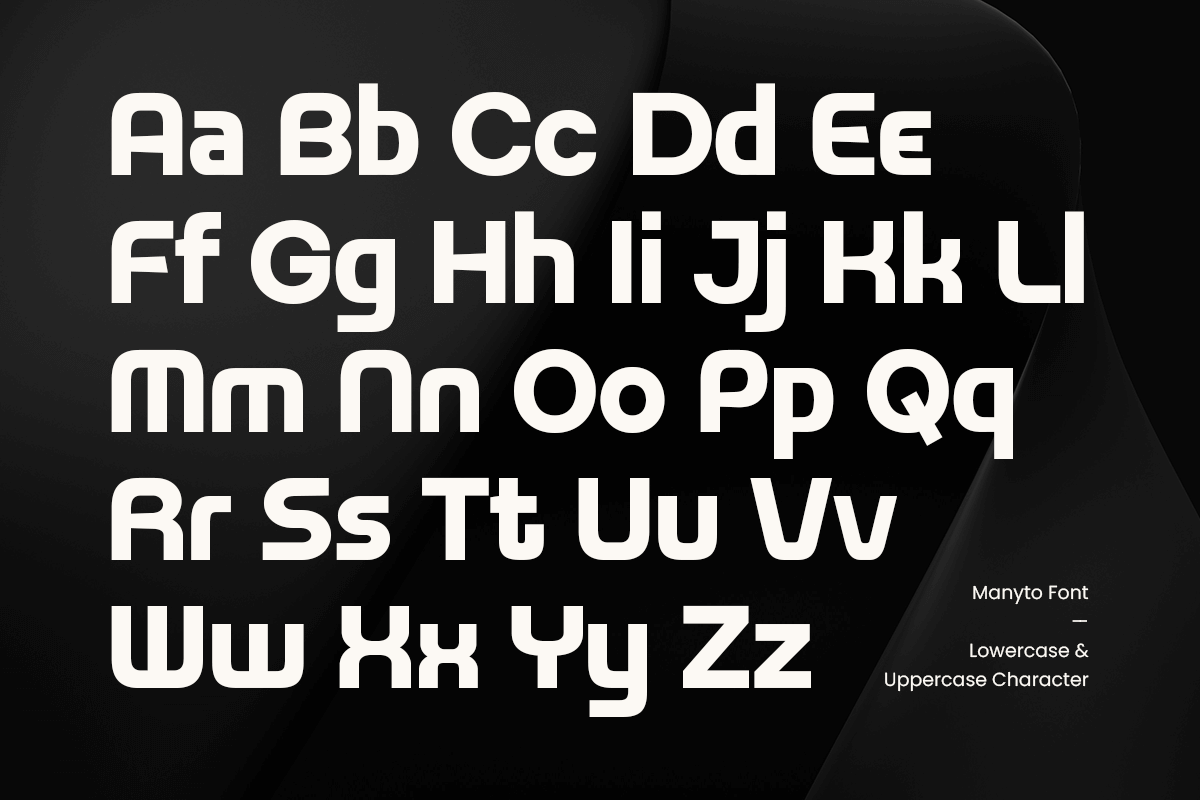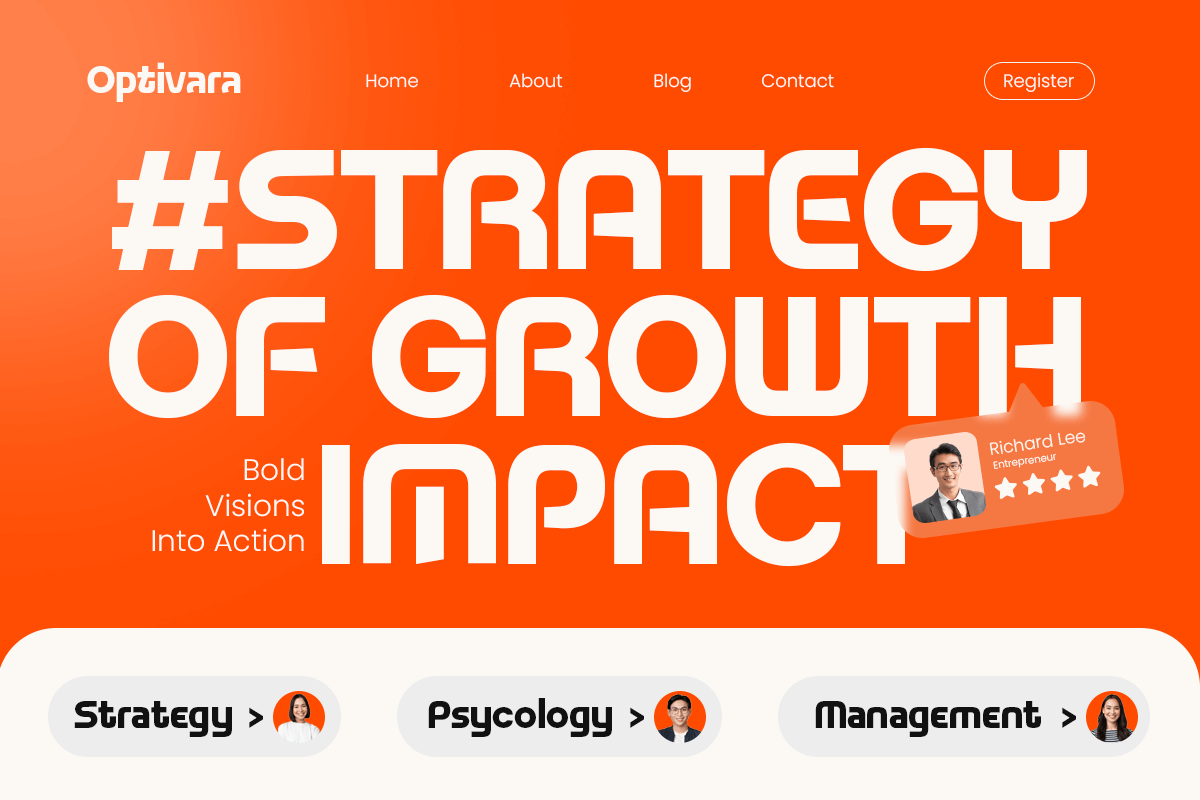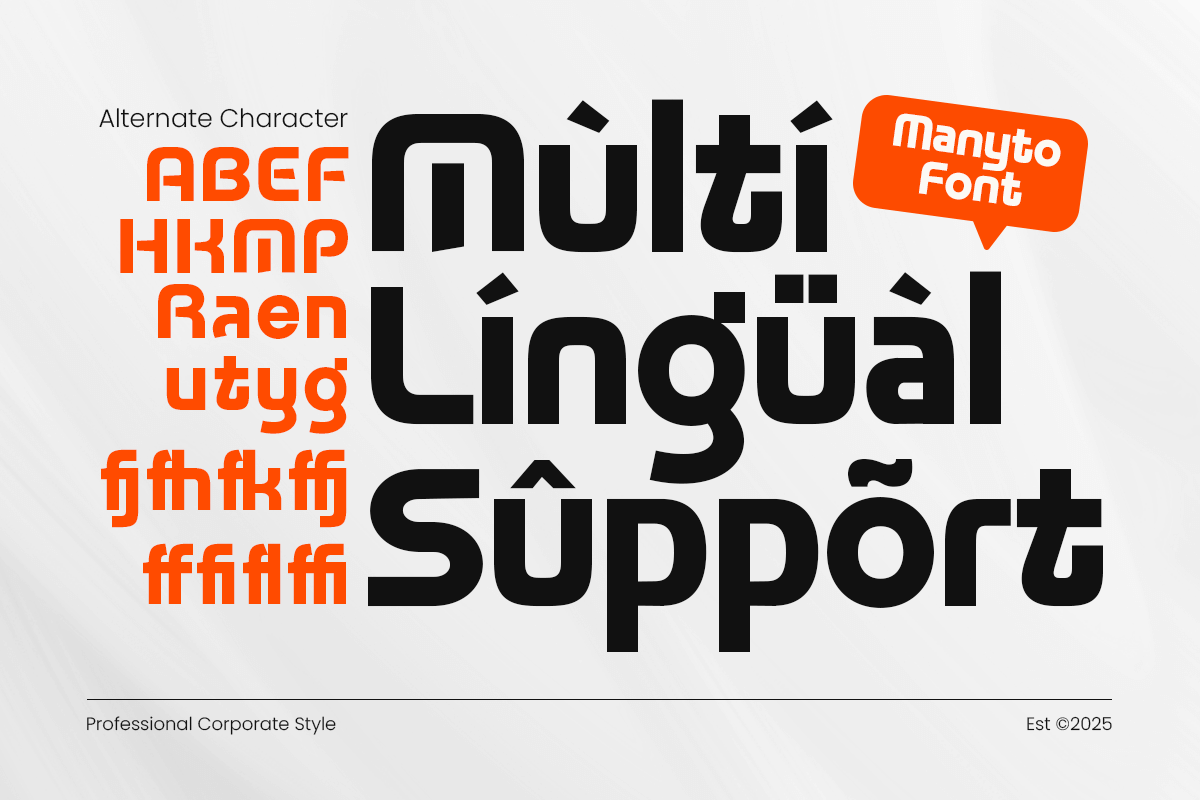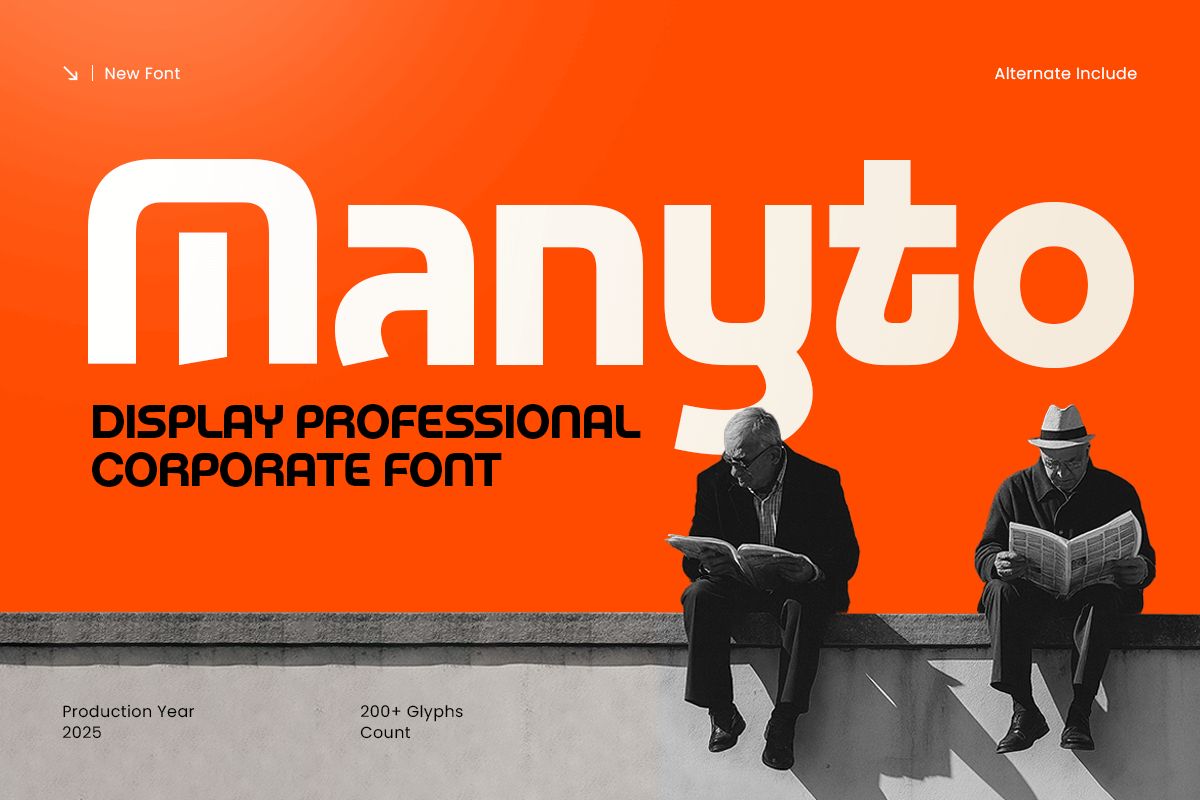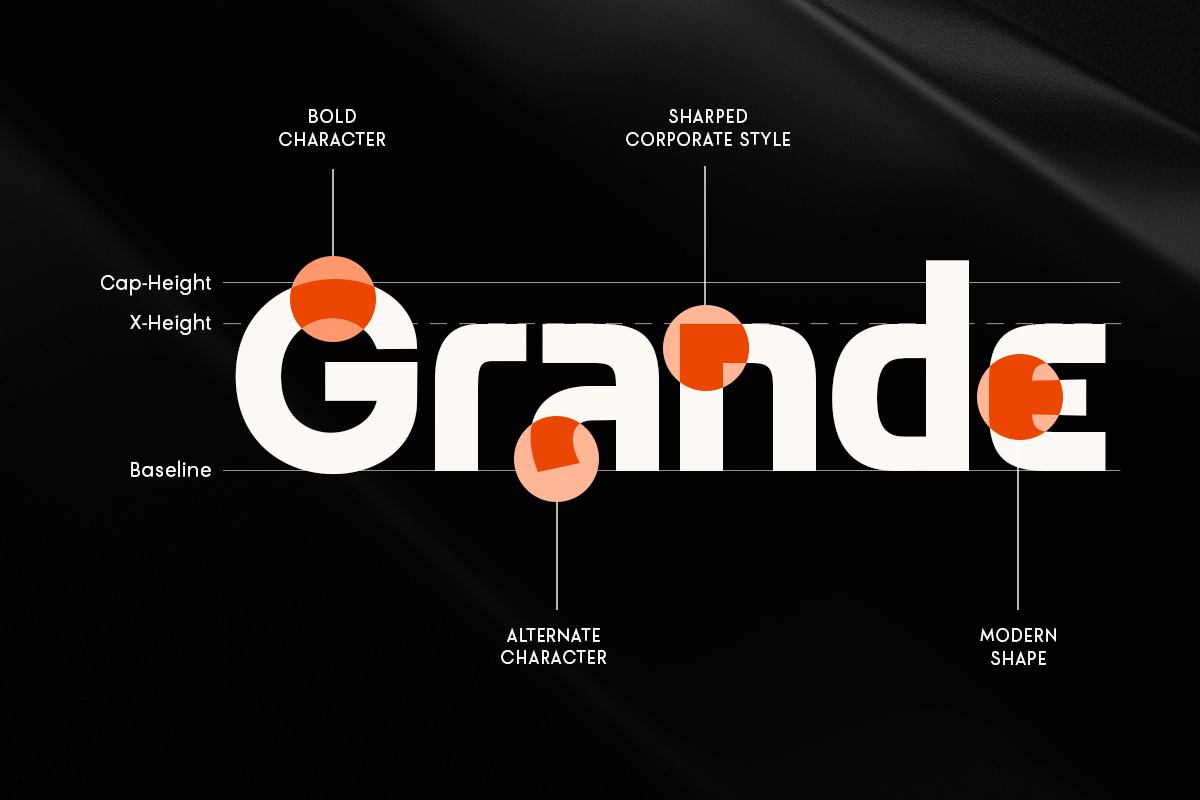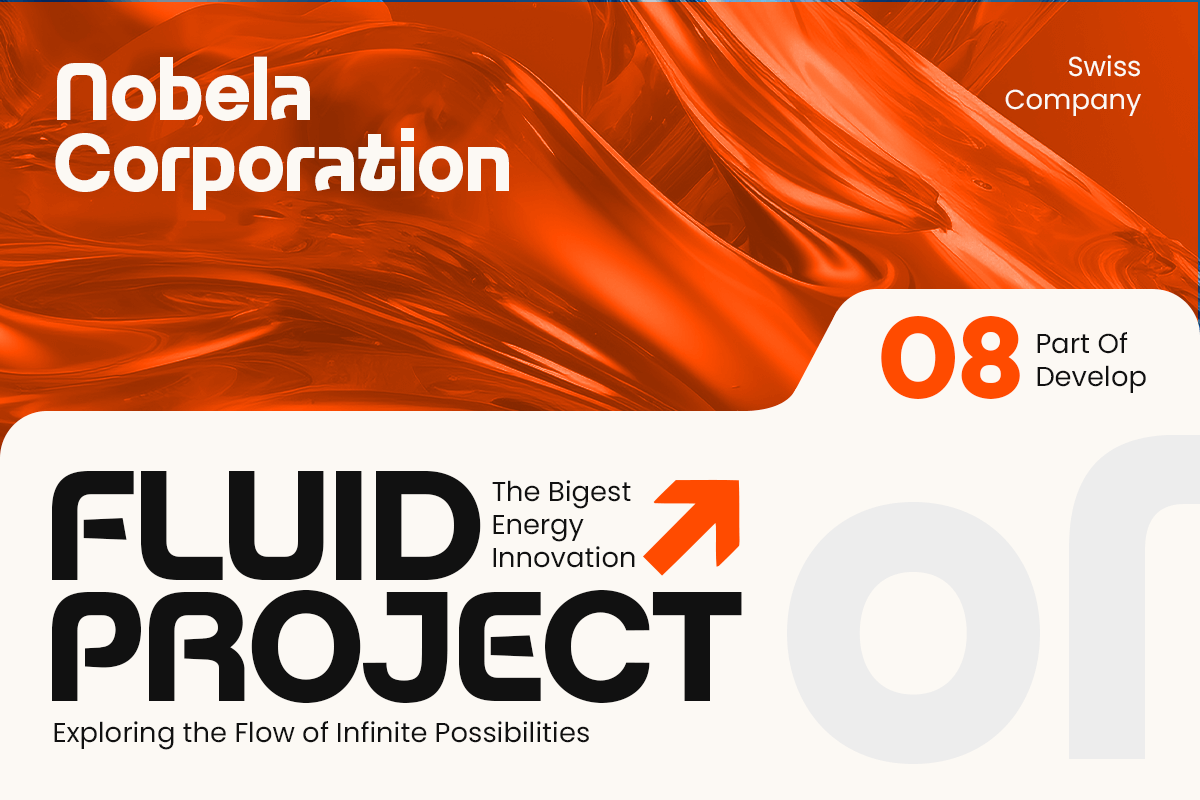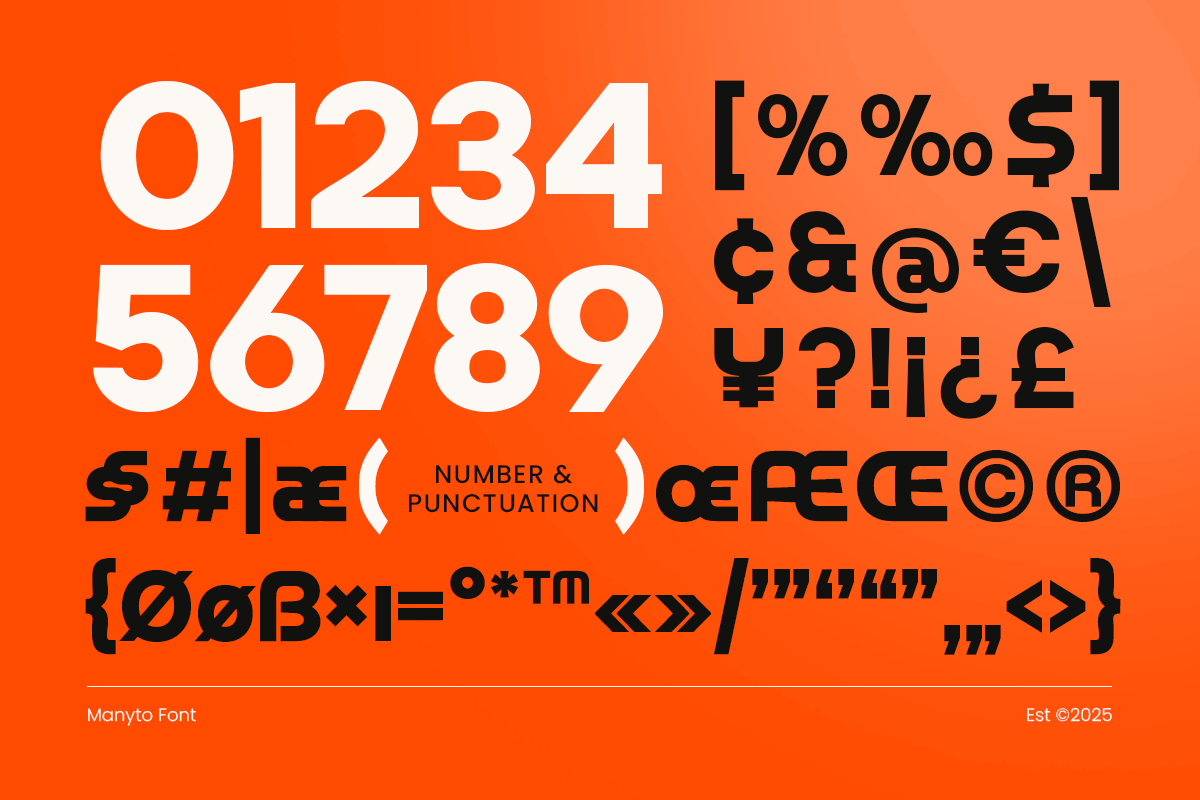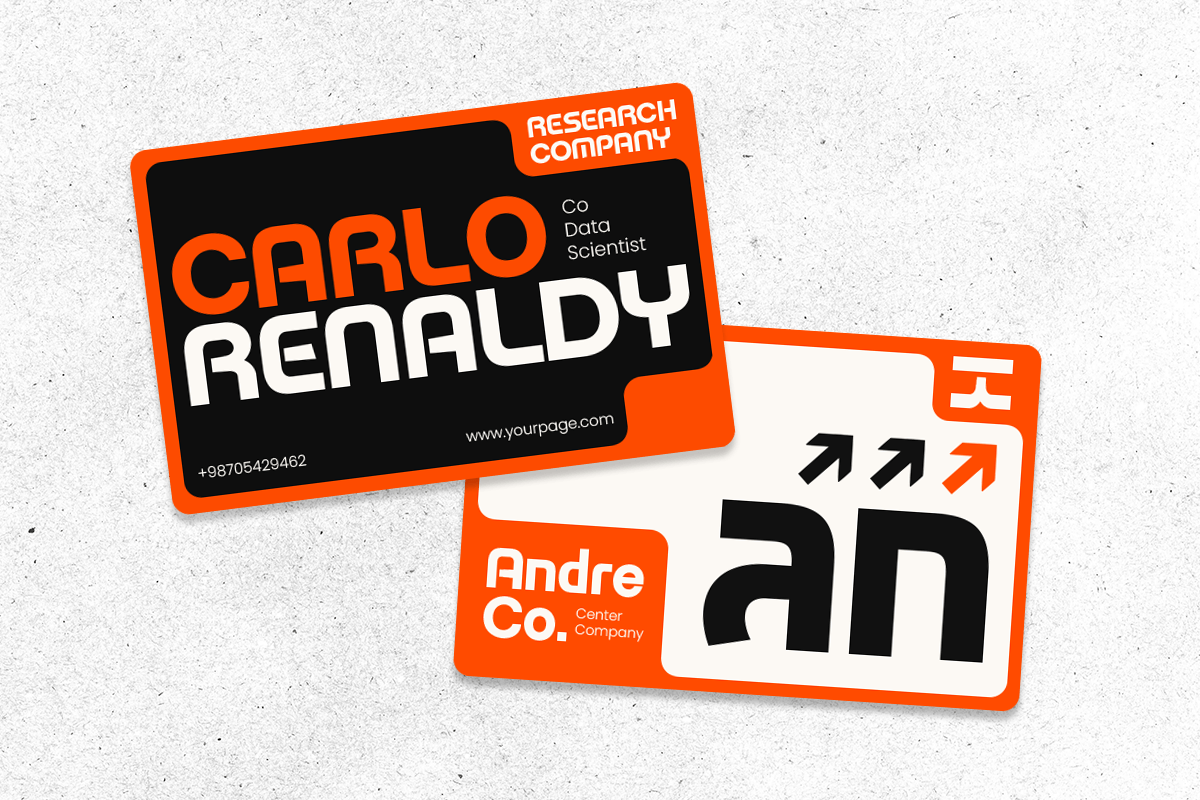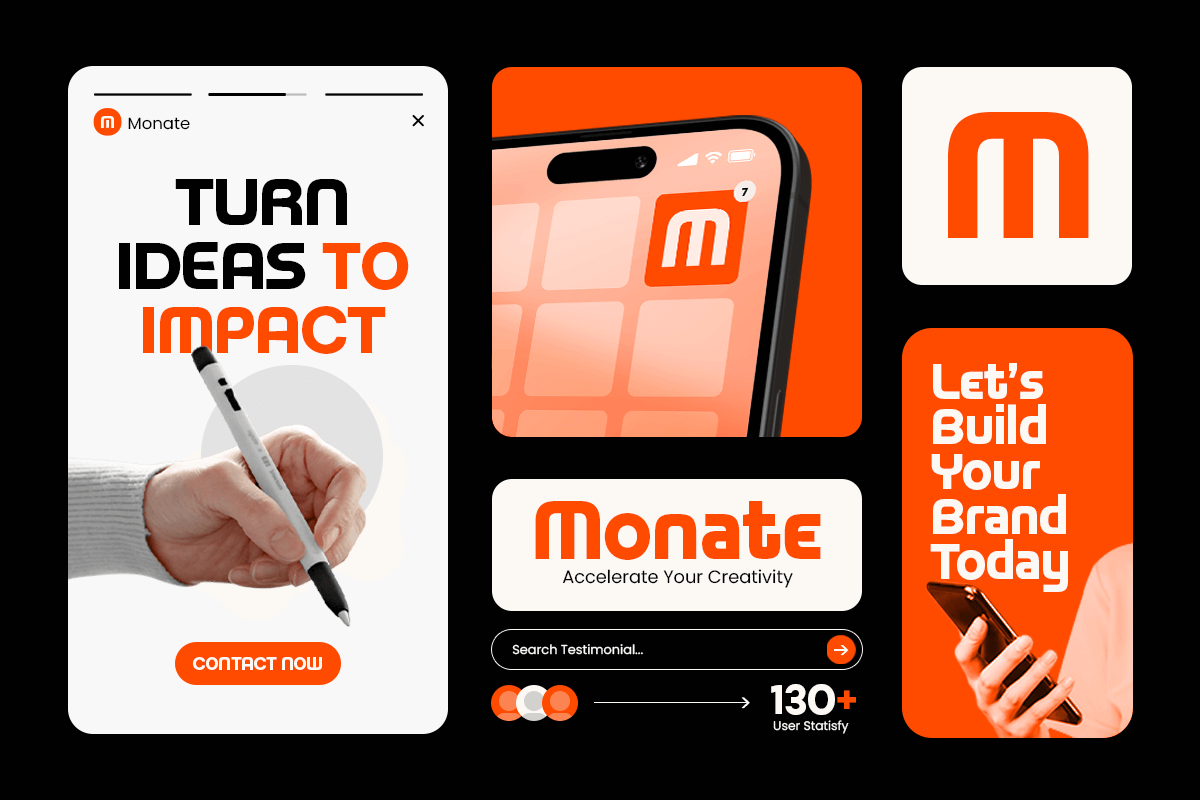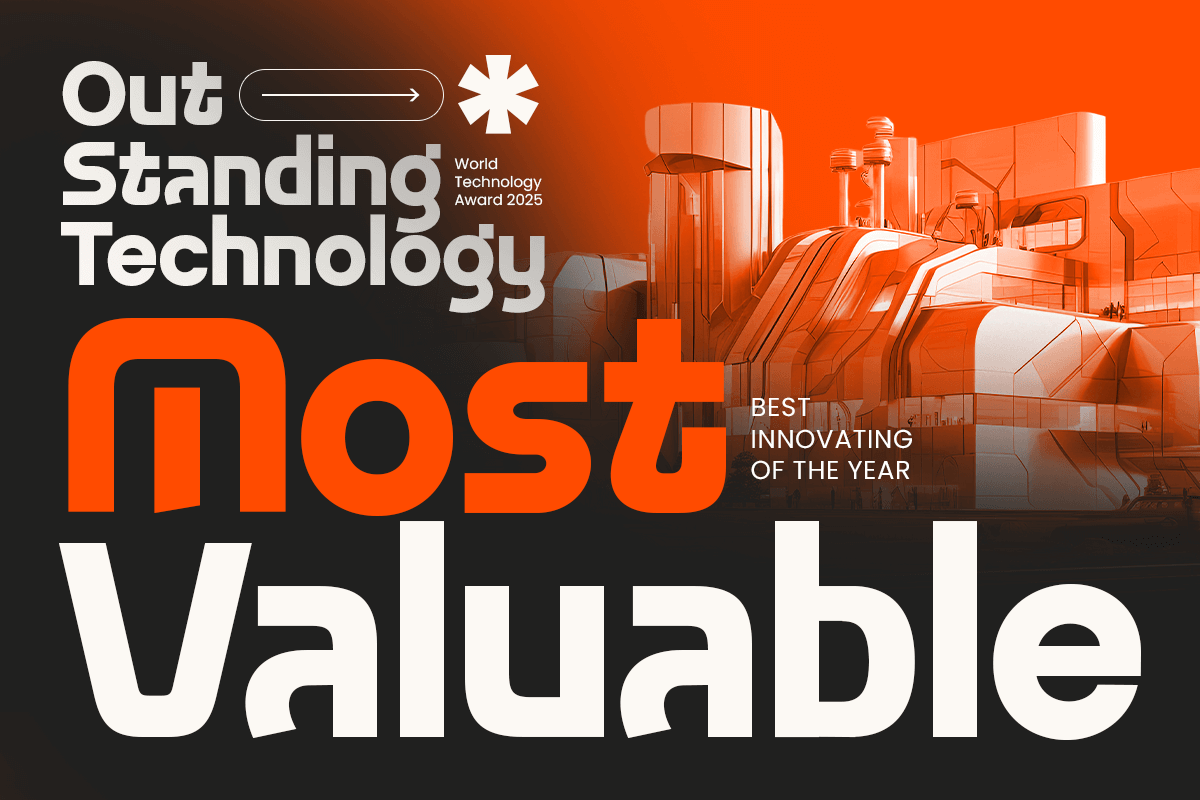
Manyto - Display Corporate Font
Manyto – Display Professional Corporate Font
Manyto is a modern and professional display font designed for corporate branding and business communication. With its clean structure, bold presence, and precise letterforms, Manyto delivers a strong visual identity that enhances credibility and professionalism in every design.
Perfect for logos, company profiles, presentations, and marketing materials, Manyto blends modern aesthetics with timeless corporate appeal. Its balanced spacing and sharp edges create a confident and reliable impression, making it the ideal choice for agencies, startups, financial brands, and enterprise-level design projects.
Manyto – Display Professional Corporate Font Features:
\\\* Modern display style with professional corporate aesthetics
\\\* Perfect for business branding, presentations, and logos
\\\* Includes uppercase, lowercase, numerals, and punctuation
\\\* Refined kerning and smooth readability across media
\\\* Suitable for both digital and printed corporate materials
Strengthen your brand identity with Manyto – the professional display font that defines modern corporate excellence.